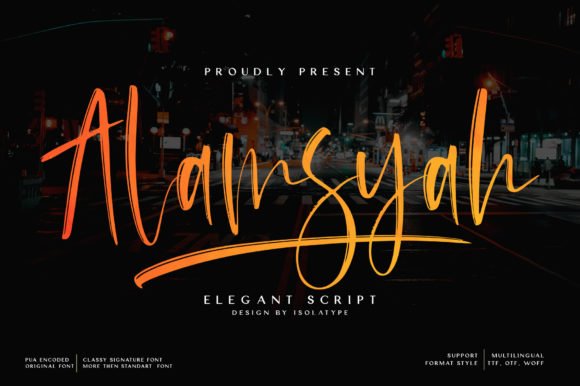
Discover the Magic of Alamsyah Font
Have you ever stared at a blank page, feeling like the perfect font is just out of reach? We’ve all been there. The cursor blinks, taunting us with its steady rhythm, until suddenly, the perfect phrase pops into our minds – and the right font is the key to bringing it to life. That’s where Alamsyah Font comes in, a stylish, thin lettered, and asymmetrical handwritten font that will elevate any creation.
Whether you’re crafting a wedding invitation, designing a logo, or simply adding a personal touch to your social media posts, Alamsyah Font is an incredible asset to have in your fonts’ library. Its unique, handwritten feel adds a touch of personality to any design, making it a valuable addition to any designer’s toolkit.
- Unique Characteristics: Alamsyah Font features a unique blend of traditional and modern elements, with intricate details and ornaments that set it apart from other fonts.
Alamsyah Font Review
Overall, I found the Alamsyah font to be quite intriguing, with some impressive features that make it stand out. ✨
- Unique Character Set: Alamsyah features a unique set of characters that add to its charm, making it perfect for designers looking for something exotic.
- Customization Options: The font’s customizable features allow users to tweak its appearance to suit their needs.
However, there are some limitations that might deter users. ⚠️
- Limited Language Support: The font primarily supports languages that use the Latin alphabet, limiting its use for languages that require more complex character sets.
- Less Familiarity: The font’s unique style might not be familiar to all users, potentially causing confusion in certain design contexts.
Overall, I think the Alamsyah font is a great addition to any designer’s toolkit, but it’s essential to understand its limitations before deciding to use it.
Getting the Most Out of Alamsyah Font
For optimal results, use Alamsyah Font in conjunction with bold or italic styles to create visual contrast.
Also, experiment with different font sizes and colors to create a unique and eye-catching design.
Alamsyah Font is ideal for use in:
1. Branding and logos
2. Digital marketing materials (social media, email, etc.)
3. Print materials (business cards, brochures, etc.)
Alternatives to Alamsyah Font for Designers
1. Ostrich Sans
Ostrich Sans is a modern sans-serif font designed by Jim Rimmer. It is a versatile font suitable for use in digital and print media, including logos, advertising, and body text. Ostrich Sans has a similar friendly and approachable feel to Alamsyah Font, but with a more contemporary look and feel.
Comparison: While Alamsyah Font has a more traditional feel, Ostrich Sans is more modern and adaptable to various design contexts.
2. Merriweather Sans
Merriweather Sans is a classic sans-serif font designed by Eben Sorkin. It is a elegant and refined font suitable for use in body text, headings, and titles. Merriweather Sans has a similar classic feel to Alamsyah Font, but with a more refined and sophisticated look.